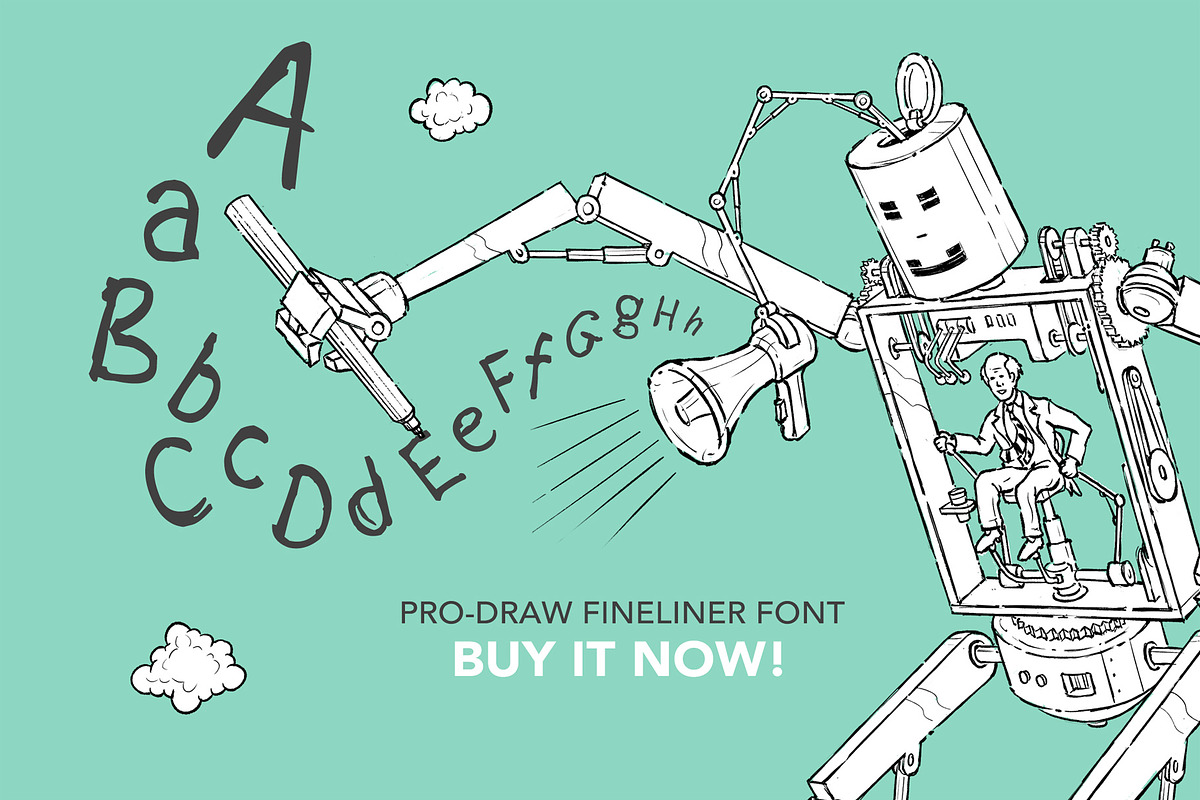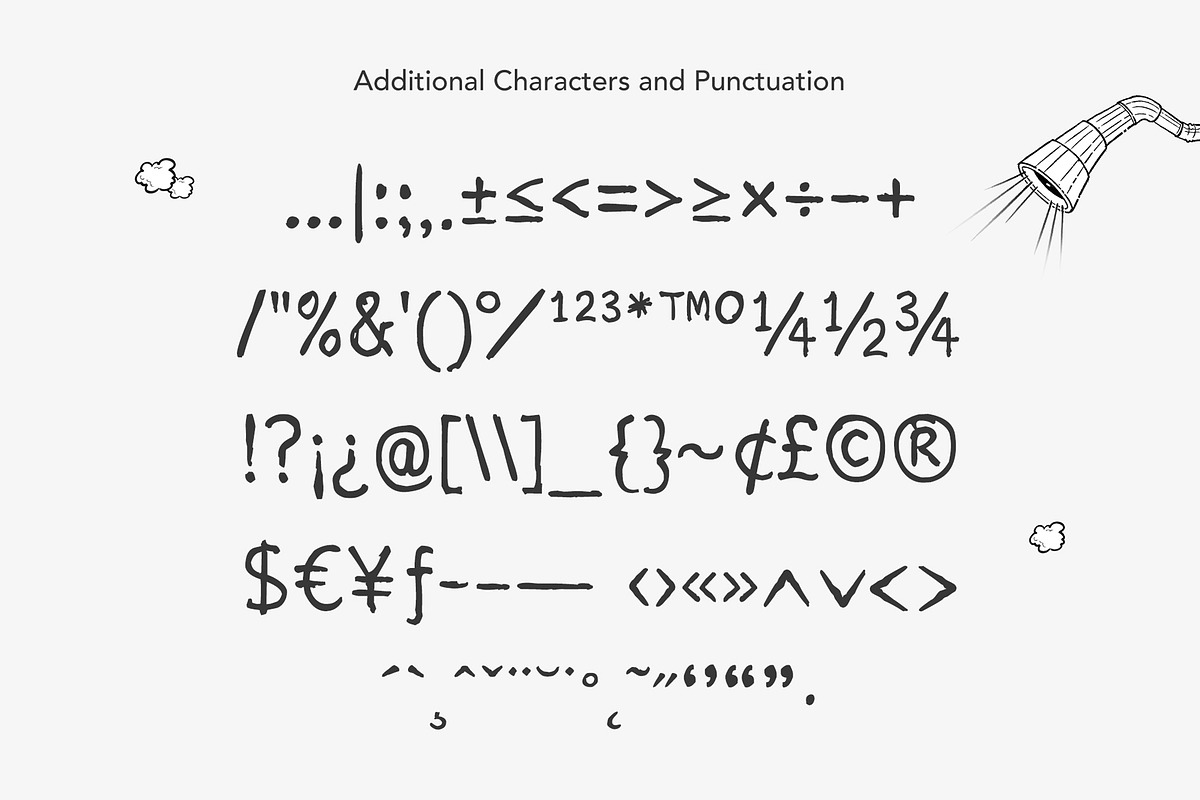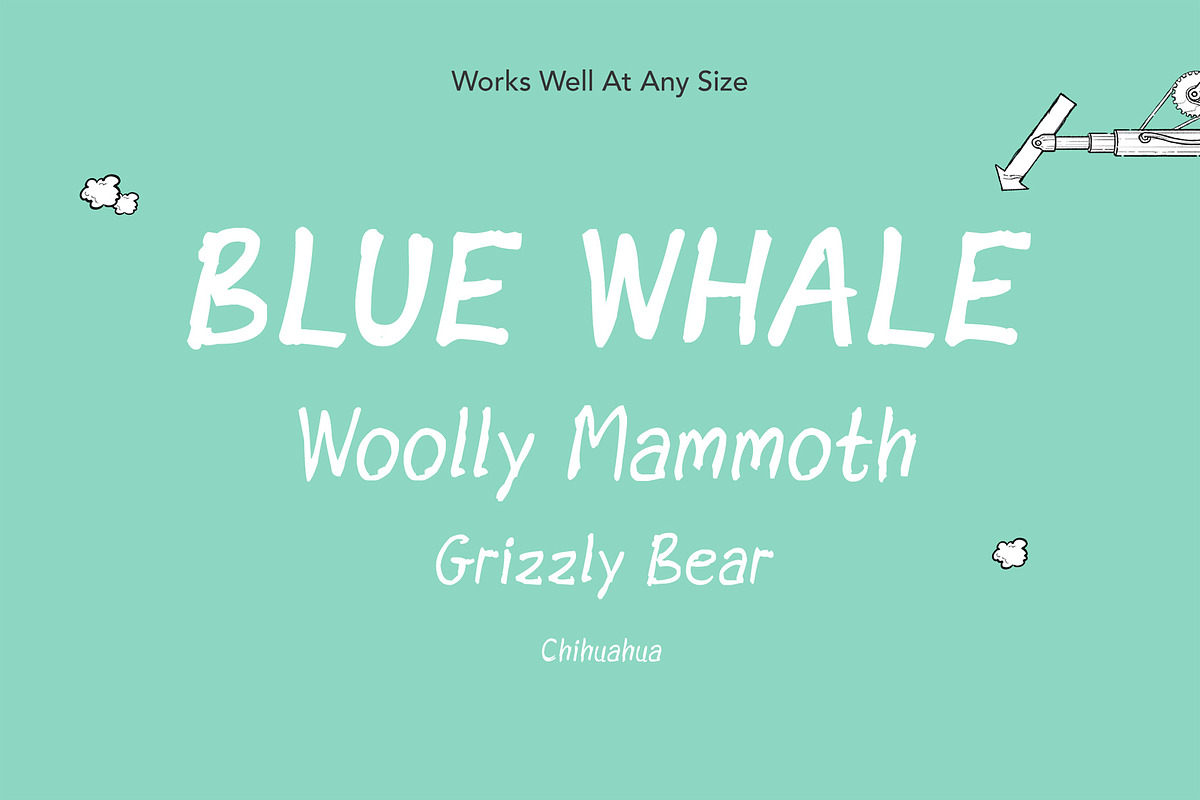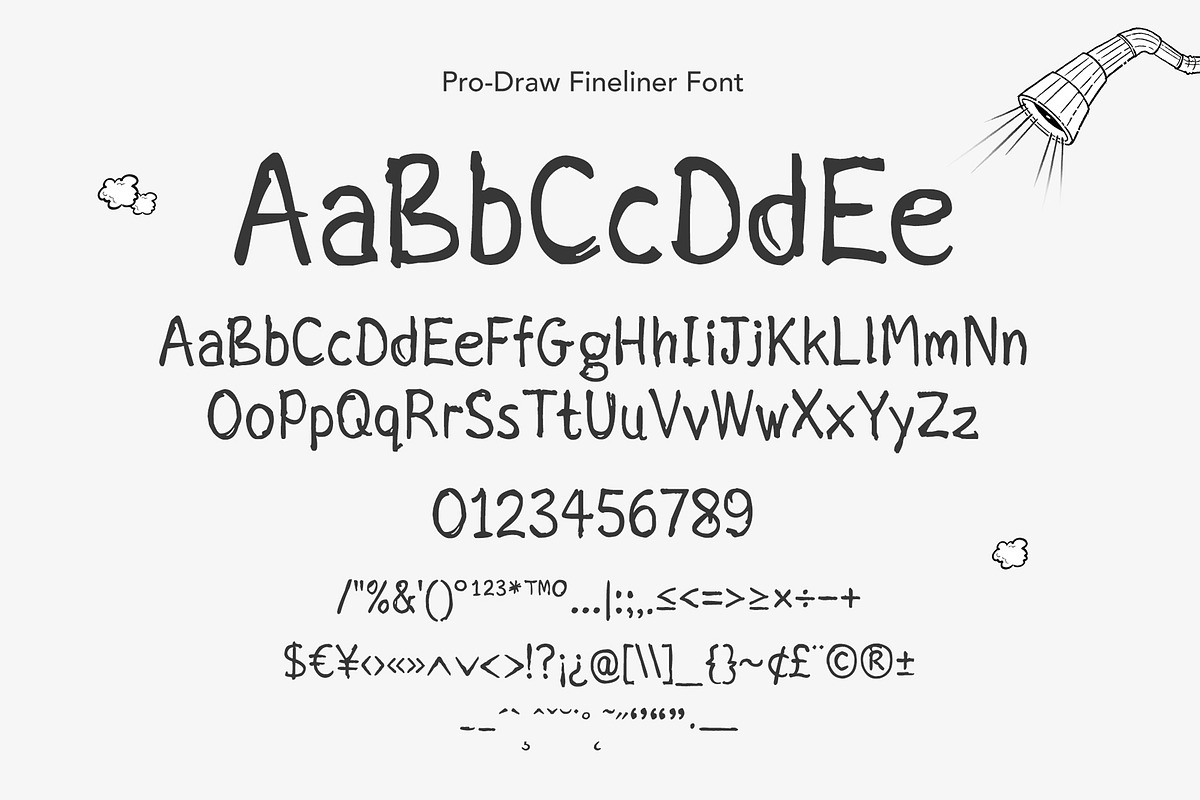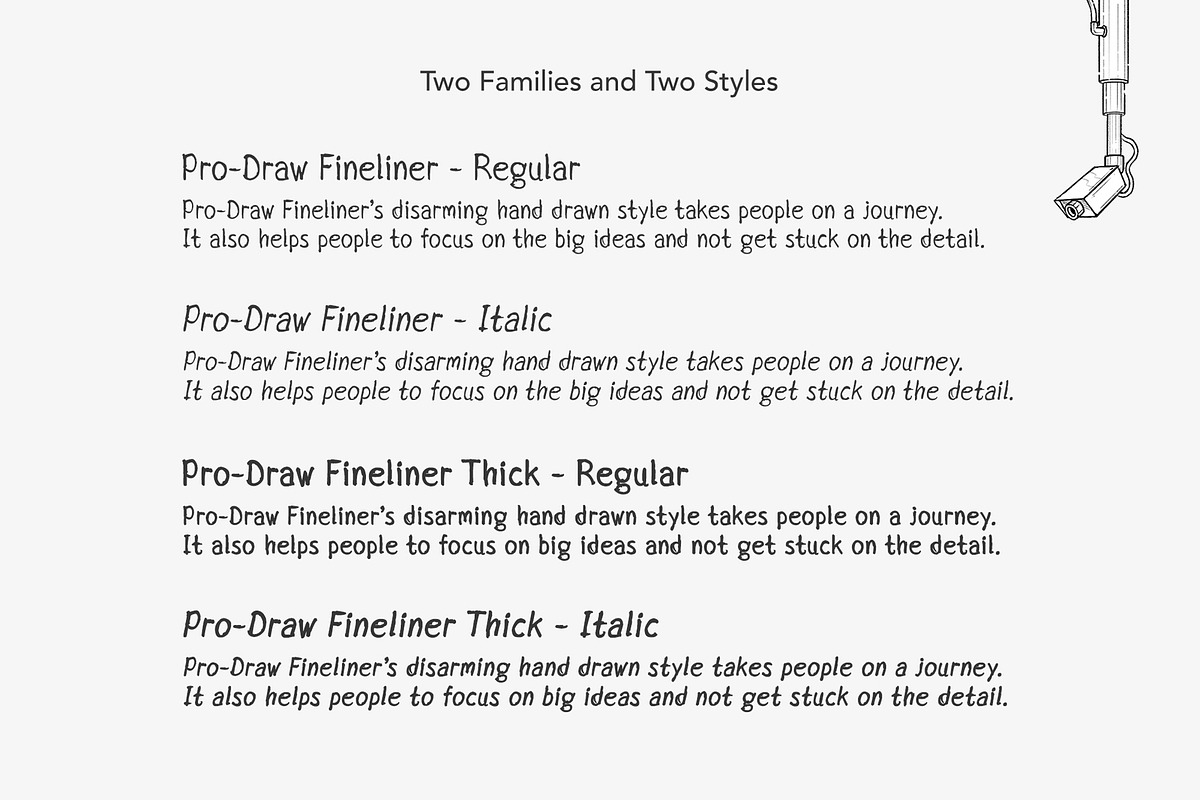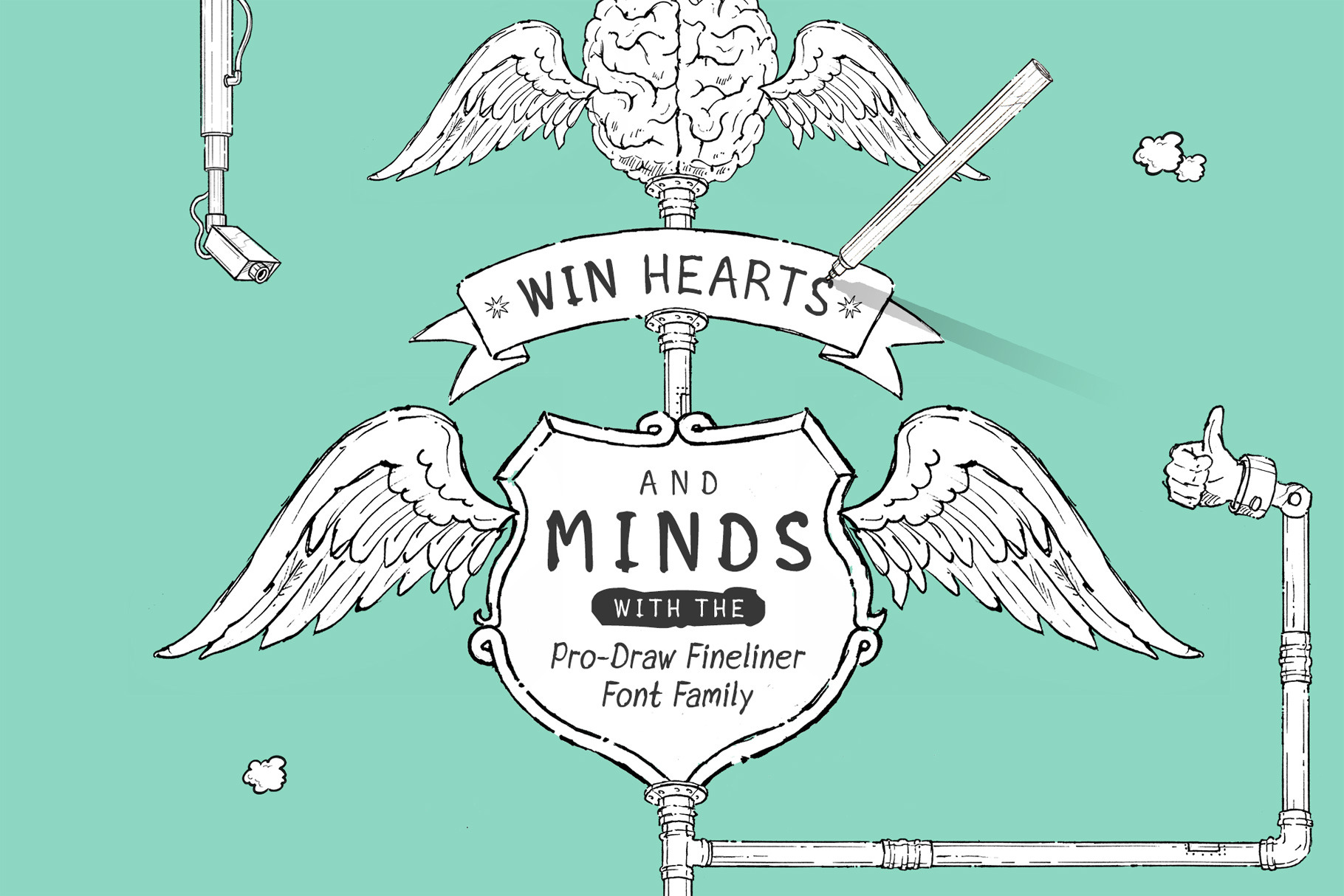
Pro-Draw Fineliner Handwritten Font
The Pro-Draw Fineliner is a distinctive handwritten, san-serif font family. It was created to mimic the effect of a fineliner pen on paper, where the paper grain creates a rough uneven edge with gentle bleed. It is surprisingly versatile, and unlike many handwritten fonts it is readable at small sizes.
Pro-Draw Fineliner is designed for business use, in particular, for bringing ideas, visions and concepts to life. In these use cases, Pro-Draw Fineliner’s disarming handwritten style helps focus people on the big ideas, rather than the superficial detail.
PACK OVERVIEW
The Pro-Draw Fineliner Font pack includes two font families:
Pro-Draw Fineliner (regular and italic)
Pro-Draw Fineliner Thick (regular and italic)
GLYPHS
There are 214 gylphs (characters) included: